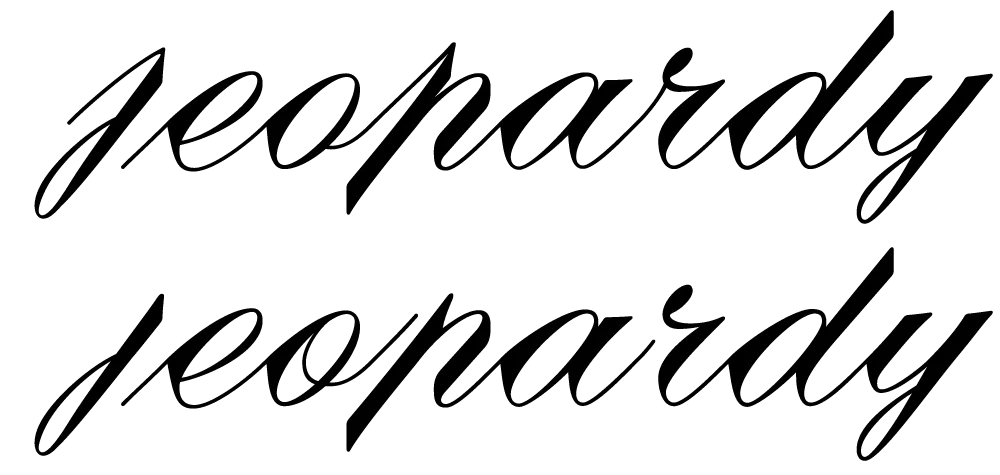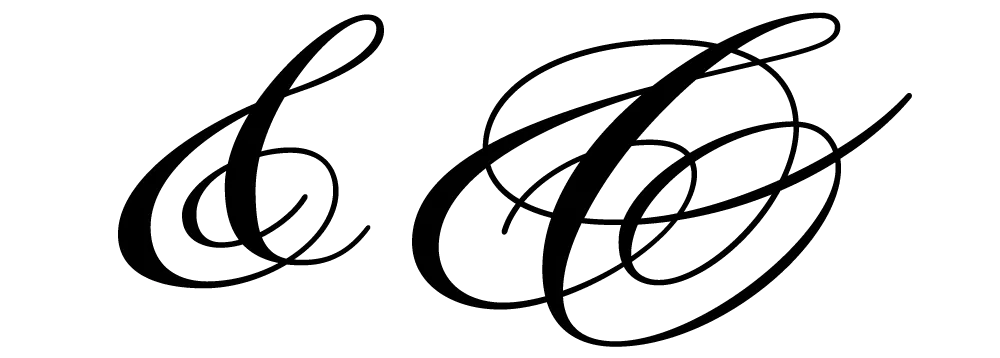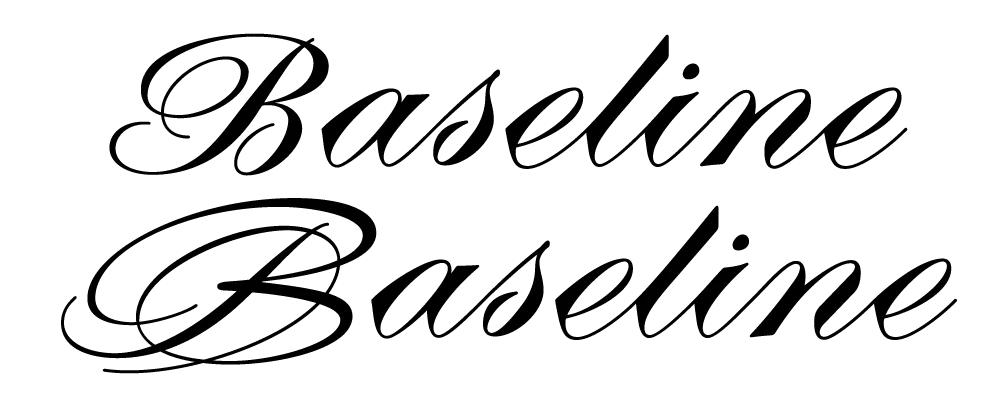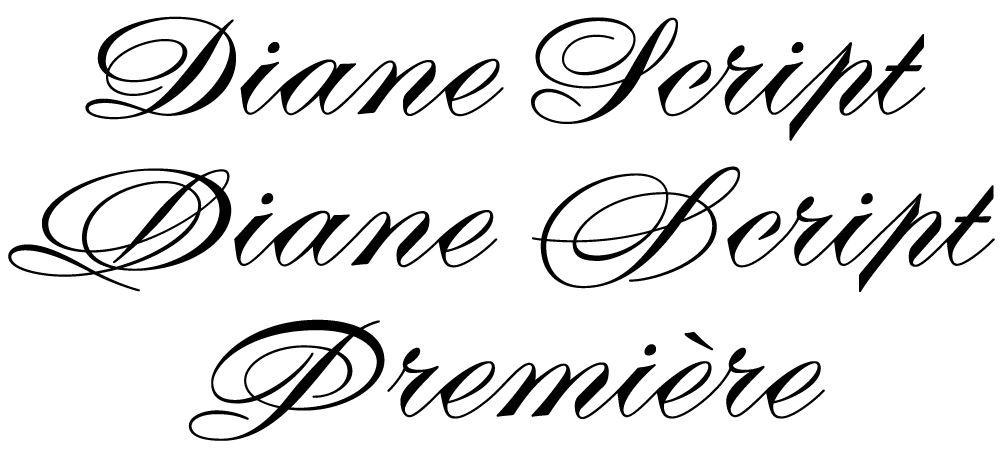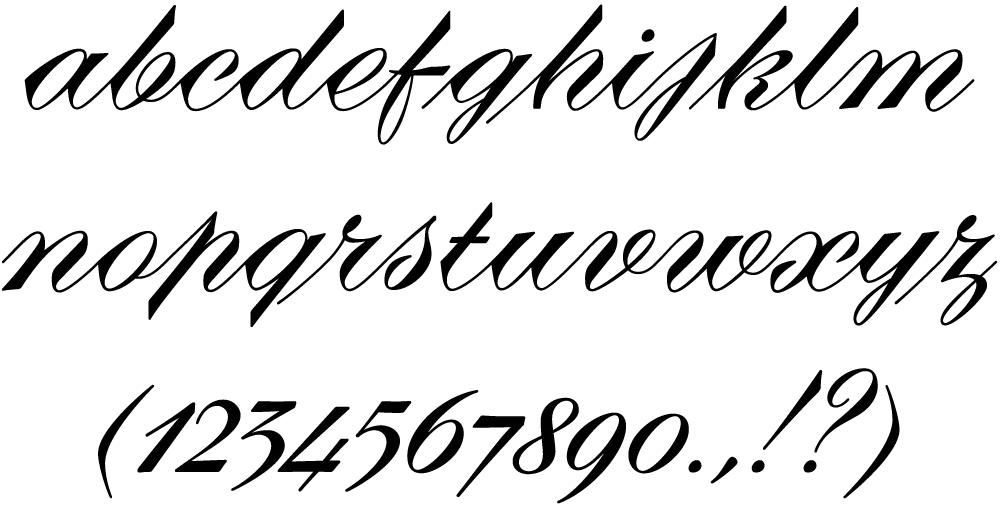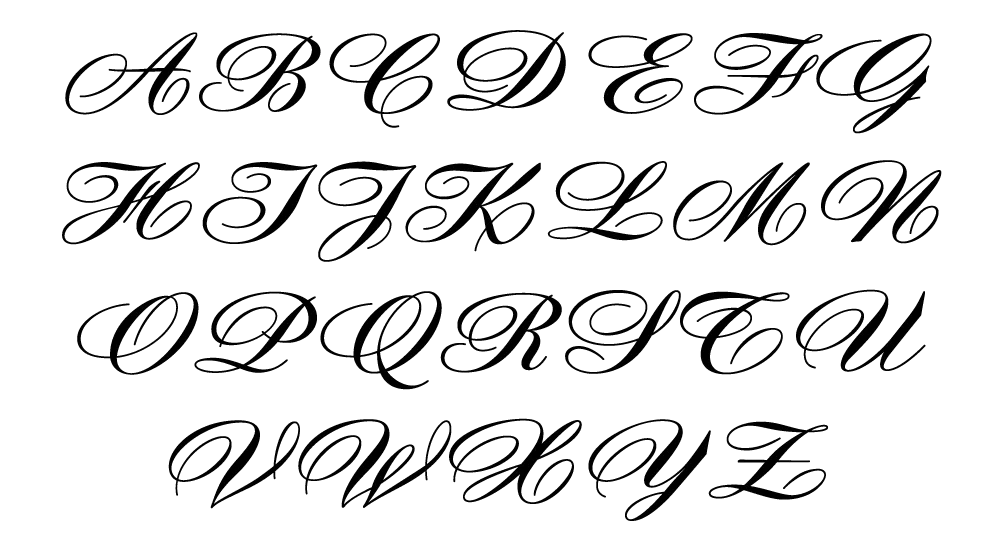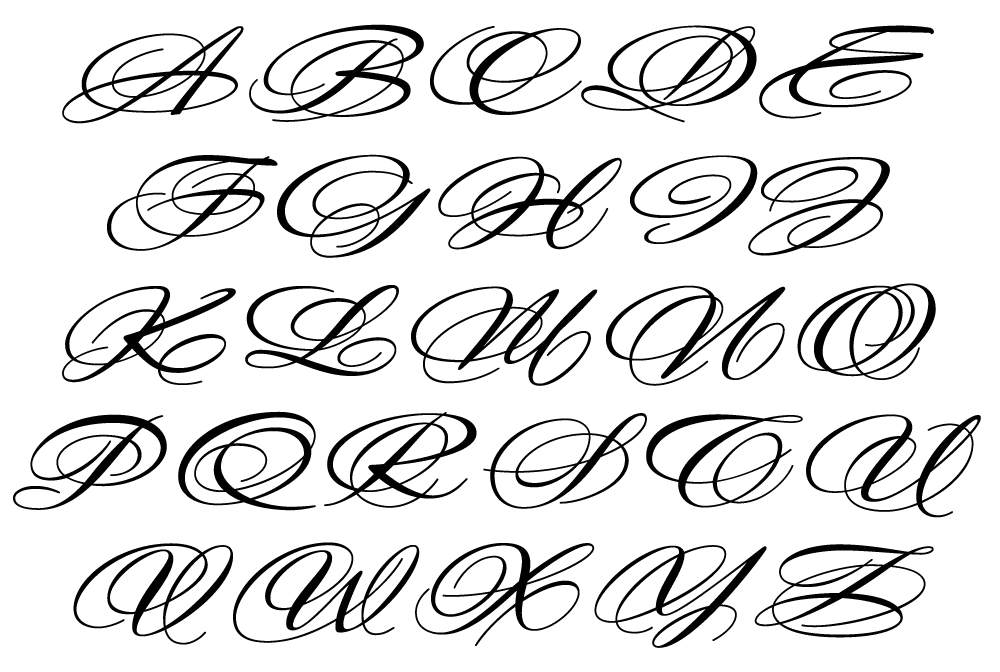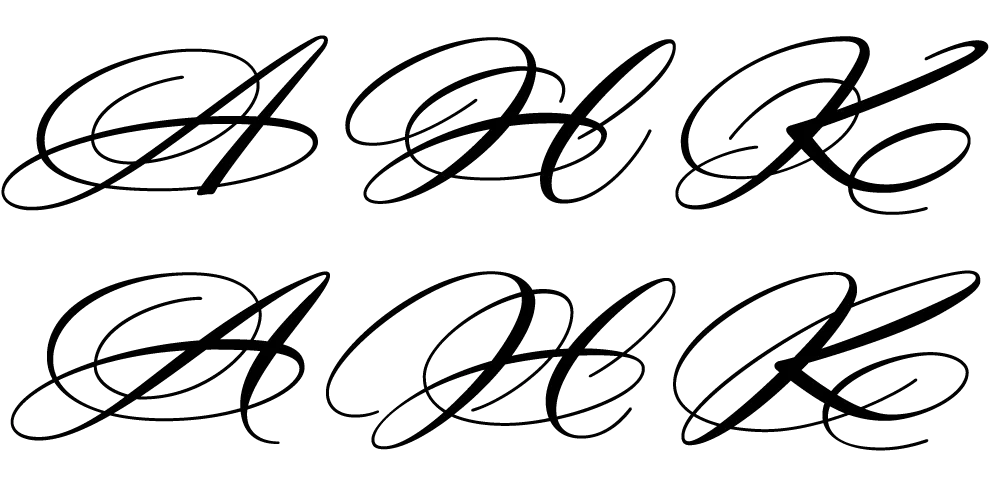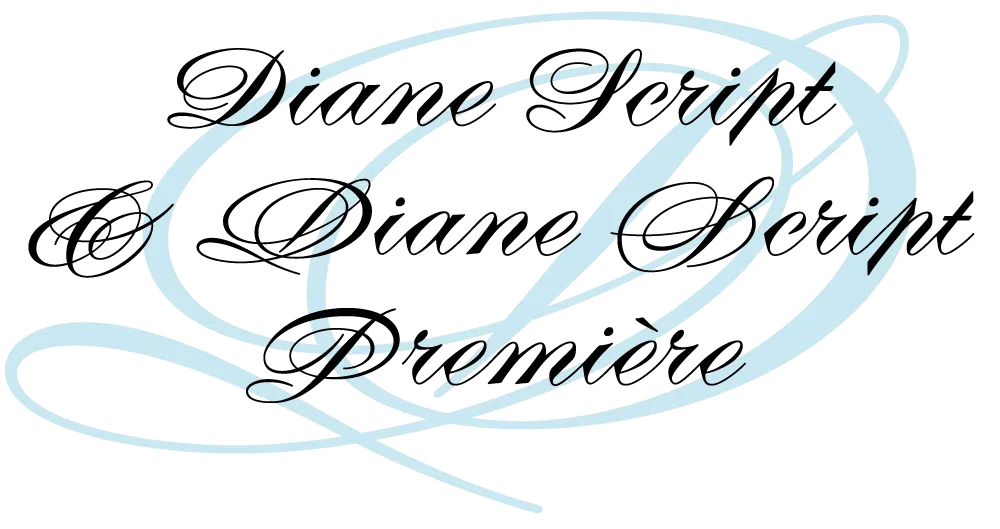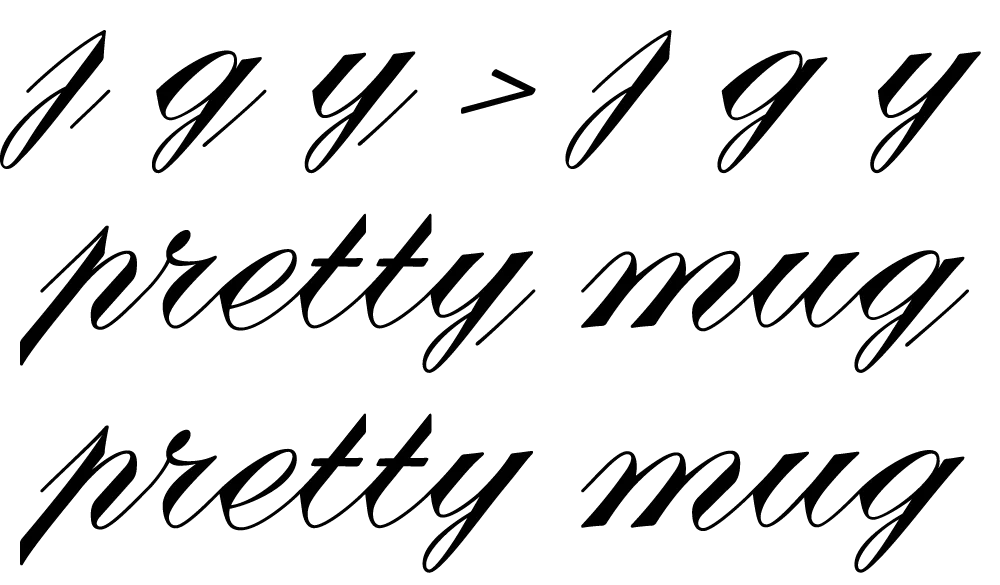
Introducing Diane Script
Diane Script and Diane Script Premiere.
I recently partnered with Mark Solsburg of FontHaus, who has lately become fascinated with twentieth century French type foundries and type designers, to create a faithful digital revival of Diane, a typeface designed by Roger Excoffon. It was released in 1956, around the same time as his more famous Mistral and Choc. For reasons that aren’t clear to me, Diane seems to have never become as popular as his other faces, especially in the U.S. Finding full specimens of the font turned out to be quite a challenge. In many cases, only the caps and lowercase are shown.
With Mark’s help, I was able to get hold of source material from the University of Groningen in the Netherlands, D. Stempel GmbH metal type services in Frankfurt, Germany, as well as from some type specimen books that I already had in my possession.
Lowercase and numbers, common to both styles.
As I researched and studied the face, many curious facts came to light. The caps in earlier specimens of Diane are completely different from specimens published later, suggesting that the face was redesigned at some point, perhaps in the mid-1960s. So we are left with two different sets of caps.
Excoffon’s original caps.
Plain caps, added later.
The original had very elaborate, swirly strokes, characteristic of Excoffon’s gestural designs for posters and logos. Later on, these appear to have been replaced by a set of simpler, more traditional script caps. The original caps are criticized in one source I found (“Practical Handbook on Display Typefaces”, 1959) as being “exquisite” but “not highly legible”. Perhaps this is what led to the simpler caps being introduced.
‘Prototype’ caps.
Even more curious, the caps shown in the Olive specimen “3 Scriptes” that accompanied its release in 1956 are noticeably different from the ones found in existing Diane metal fonts. The only conclusion I can make is that Diane, as it was shown in the “3 Scriptes” specimen, was not yet finalized when this was published. (Some of these earlier character designs are included in my revival.)
Alternate ‘prototype’ lowercase characters.
Changes appear to have been made in the lowercase as well. Several characters have non-connecting incoming strokes in the 1956 version. In the later version, the strokes all connect. The lowercase o also differs, with the original “3 Scriptes” specimen showing a loop inside the counter, apparently dropped in the released version.
Diane Script and Diane Script Premiere.
In my digital revival of Diane, I’ve included many of these differences. Diane Script Première includes the beautiful caps from the original version, while Diane Script features the later, simpler caps. Both faces include the non-connecting lowercase characters and the earlier lowercase o as alternate characters. Diane Script Première includes three of the “unfinished” caps from the “3 Scriptes” specimen as alternates.
Additional characters needed to be designed.
Of course, metal foundry faces had nowhere near the number of characters that modern digital faces do, so it was necessary to design quite a few new characters to match Excoffon’s original ones. This proved to be a fairly straightforward process, with one exception: the ampersand.
Plain and fancy ampersands.
As hard as it is for me to believe, it appears that Diane never had an ampersand. None of the specimens I’ve found so far has shown one. I still hold out the possibility that one exists, and intend to add it if it turns up. In the mean time, I have come up with two that I am satisfied with. The first is a simpler design to go with the simpler caps in Diane Script. In the second, I tried to capture the energy and exuberance of Excoffon’s original caps. Studying Excoffon’s gestural design work was very helpful for this. Diane Script Première includes both ampersands, with the simpler one as an alternate.
Cap-to-lowercase alignment.
Diane Script and Diane Script Première are not the first attempt to revive Diane digitally. However, in my research, I discovered a detail that previous attempts have gotten wrong: the alignment and spacing of the caps in relation to the lowercase. Unlike most typefaces, Diane’s caps actually sit slightly below the lowercase baseline. The most easily found specimens of Diane show the caps and lowercase separately, so this fact is hidden. Luckily, my source material included a few obscure specimens in which the correct relationship can be seen.
Stroke removal.
Several of the lowercase letters have disconnected outgoing strokes, intended to connect to the following letter. However, when it falls at the end of a word, the disconnected stroke is conspicuous and unnecessary. In the metal typeface, this was apparently an acceptable compromise. But in OpenType format, we can have it both ways. When such a character falls at the end of a word, the orphaned stroke is omitted automatically. (An OpenType-savvy application and/or operating is system required for this feature to work.)
In reviving Diane, I’ve sometimes felt more like a detective than a type designer. I’m very happy with the way it turned out and hope my efforts will bring new life to Roger Excoffon’s masterpiece.
Roger Excoffon, Diane, 1956, Fonderie Olive.